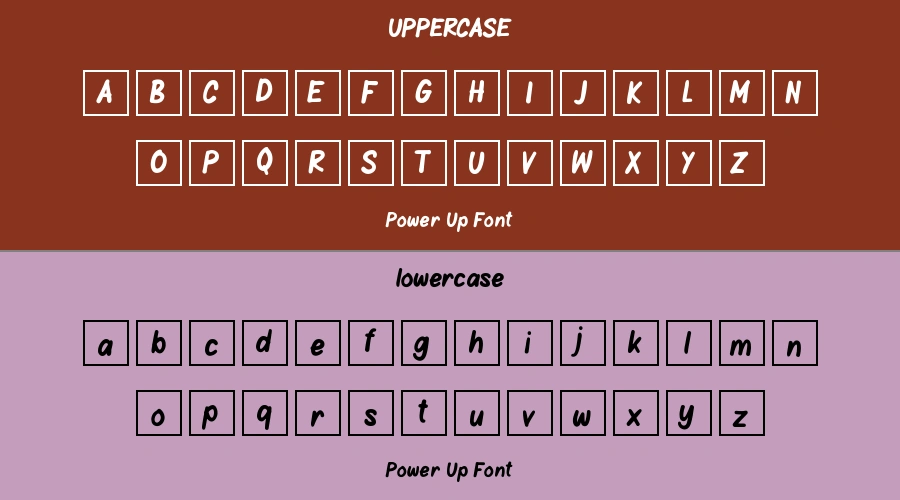
About Power Up Font
When typographic excellence matters most, Power Up Font delivers through its thoughtful blend of playful elements and flexibility. Specially crafted for product naming, it offers the professionalism and professional finish required for sophisticated design work. Every detail serves a purpose.
The character set showcases thoughtful details like expressive energy alongside functional proportional figures. This proves especially valuable in creative titles, where archive stability directly influences results. Particular attention was paid to ascender height and regulatory compliance during development.